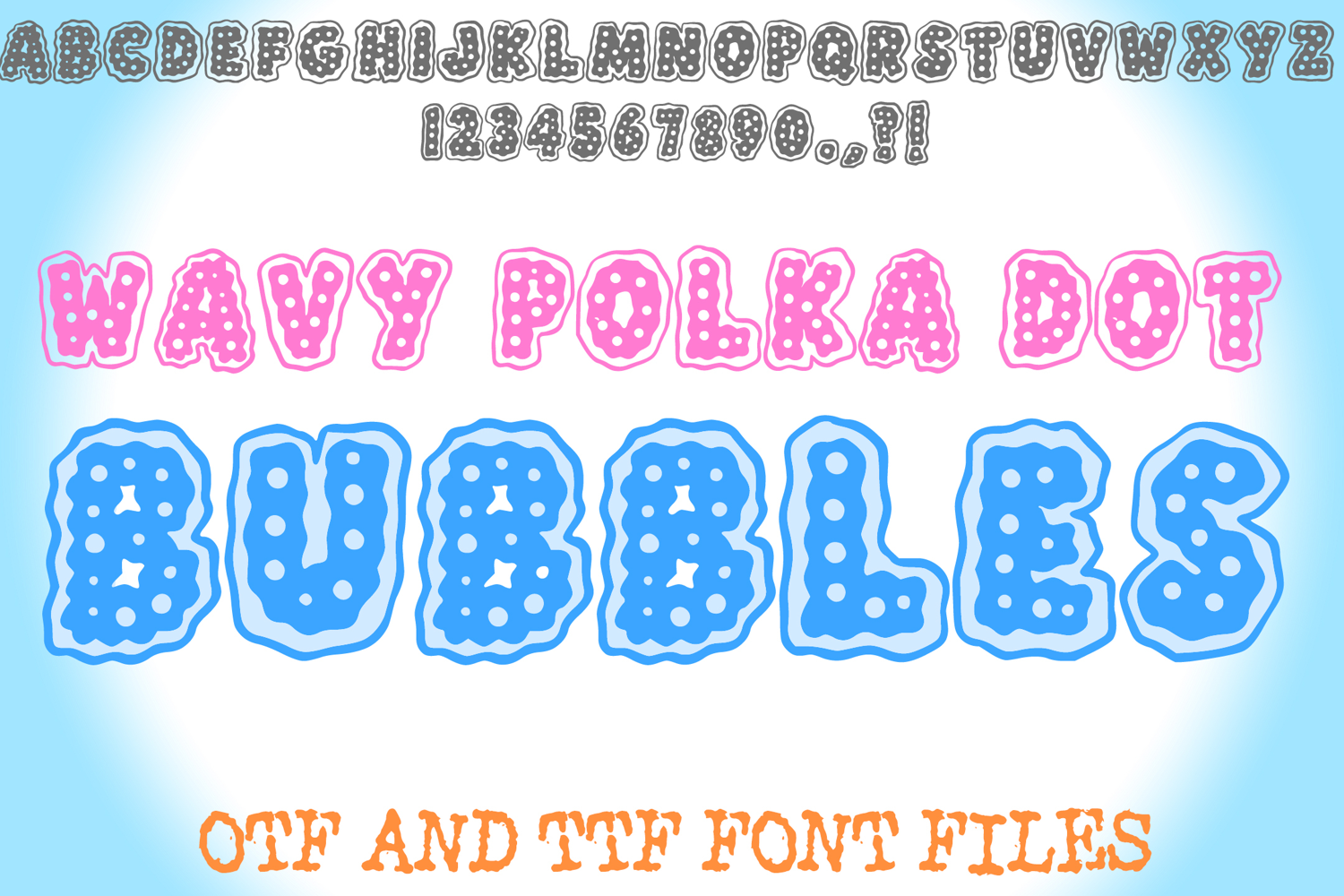
Wavy Polka Dot Bubble Font Fun Playful Spotted Typeface
Make your designs pop with the Wavy Polka Dot Bubble Font, a high-energy display typeface designed for maximum fun! This handmade font features bold, chunky characters filled with a classic polka-dot pattern and encased in a whimsical, wavy border. The combination of the spotted interior and the irregular, "wiggly" outline gives every word an organic, hand-crafted feel that is perfect for eye-catching headlines.
Whether you are creating vibrant posters, playful branding, or custom crafts, this font brings a sense of joy and retro-inspired flair to your digital toolkit. The bold silhouettes ensure high visibility, while the intricate dot pattern adds a layer of texture that works beautifully in both black-and-white and color.